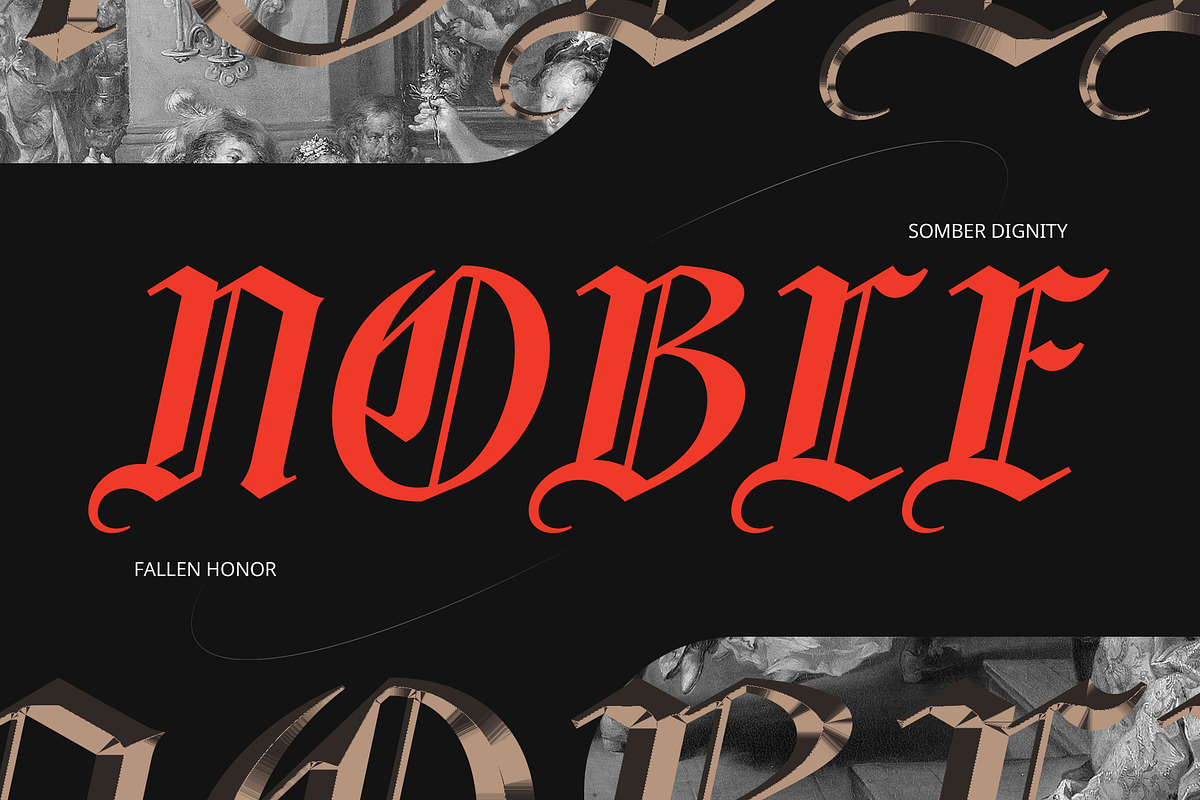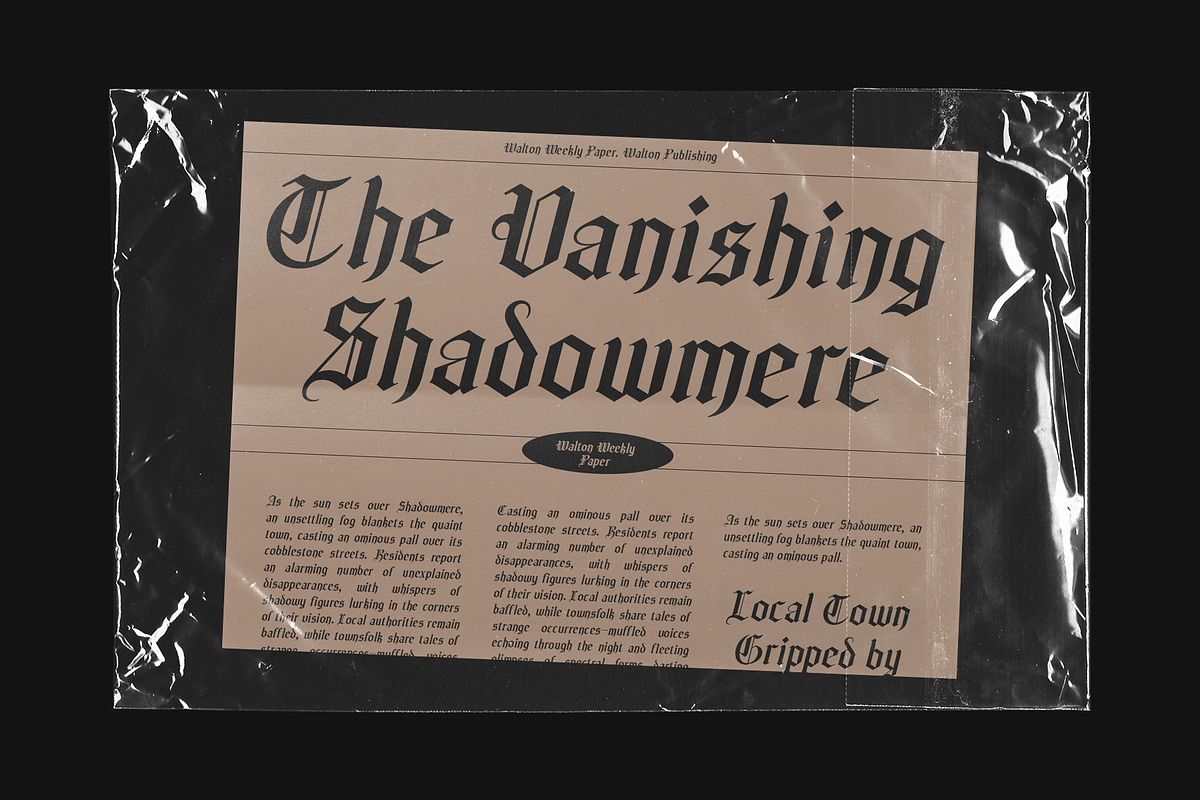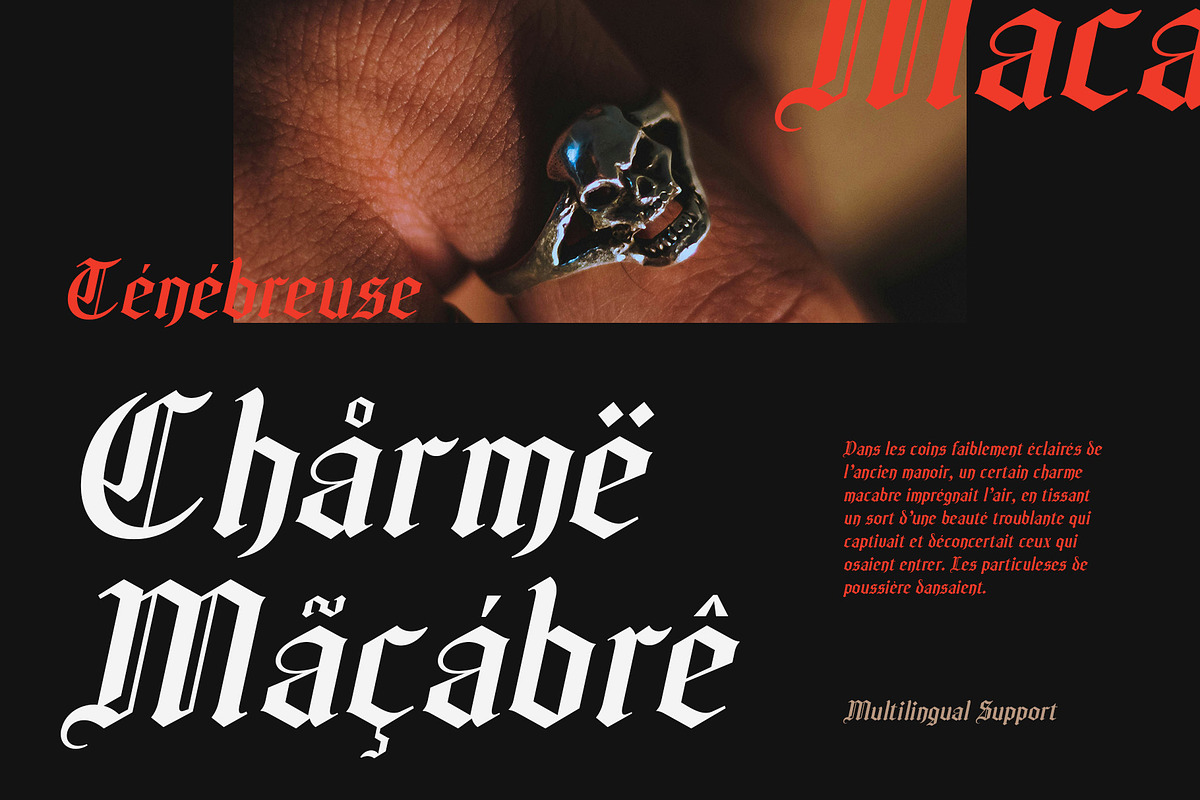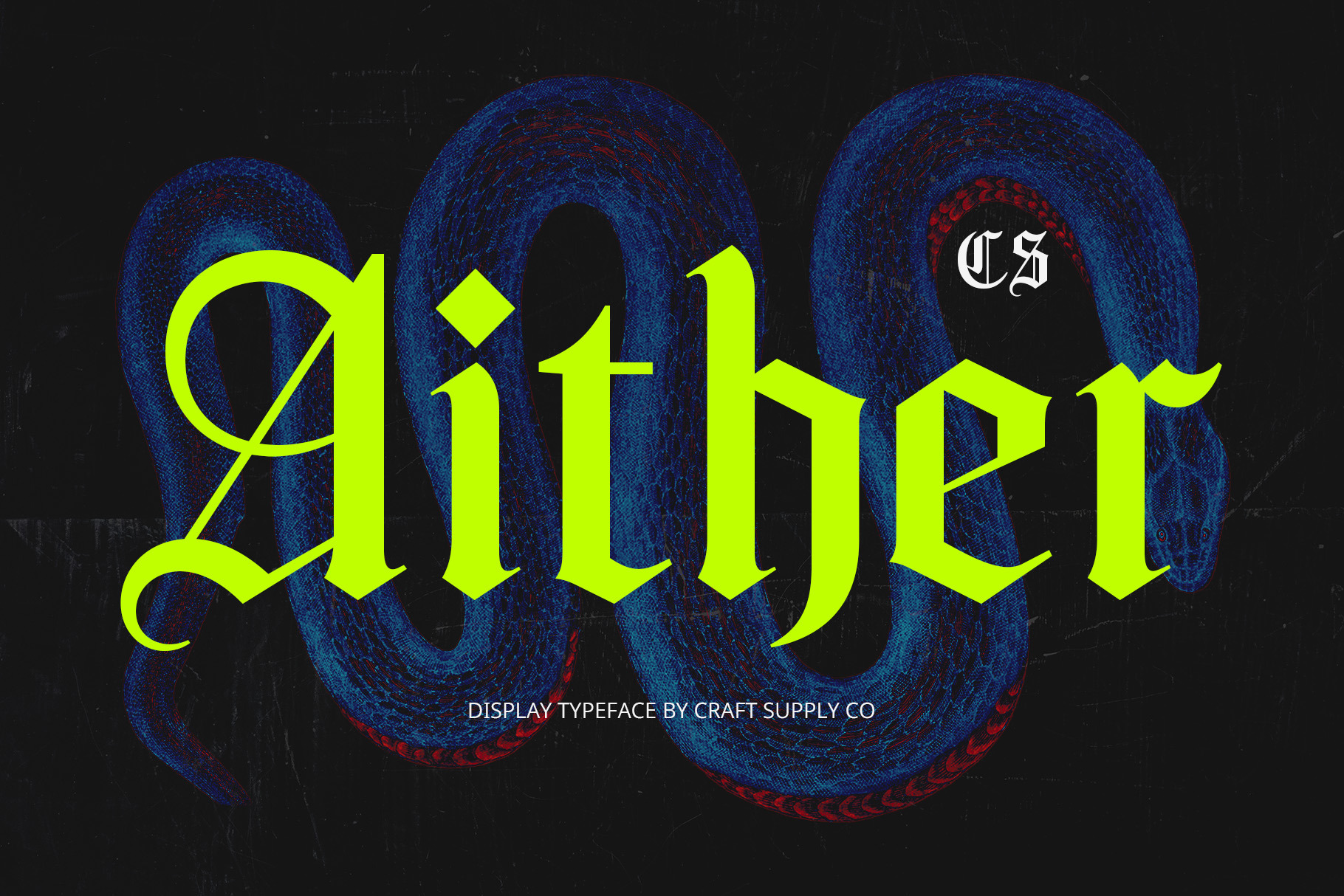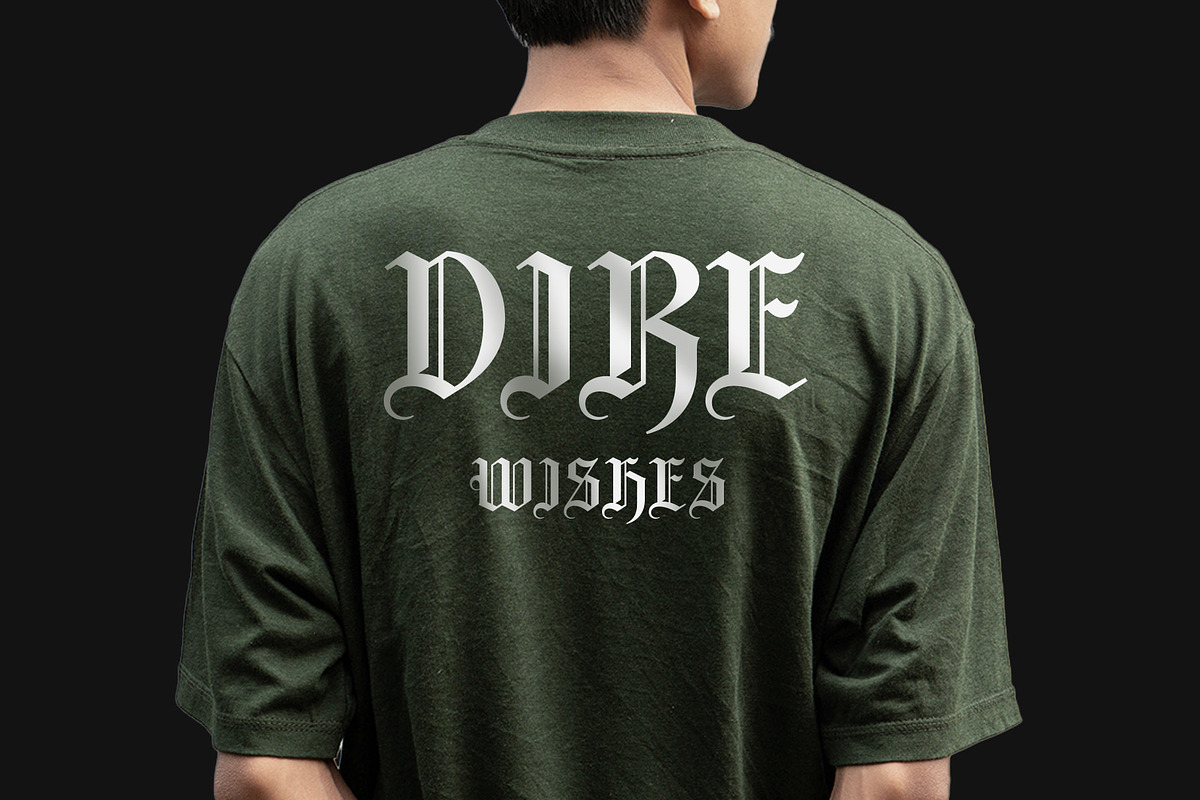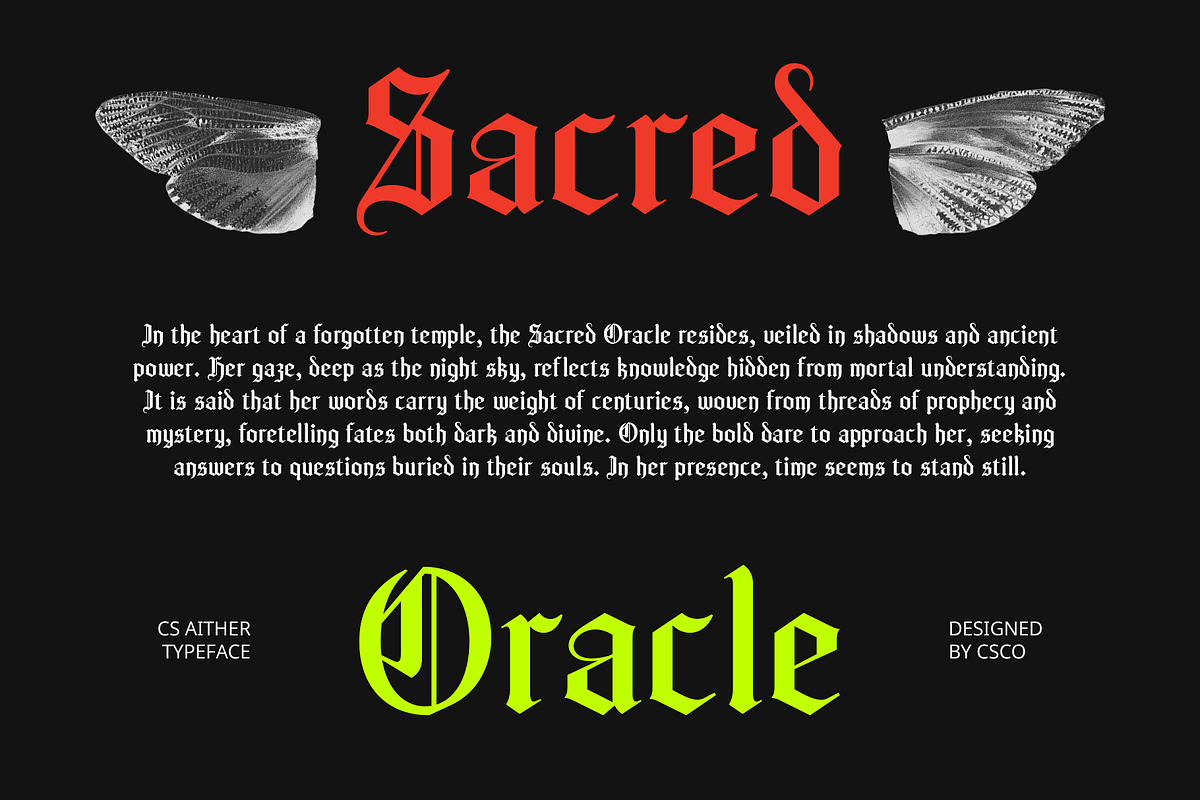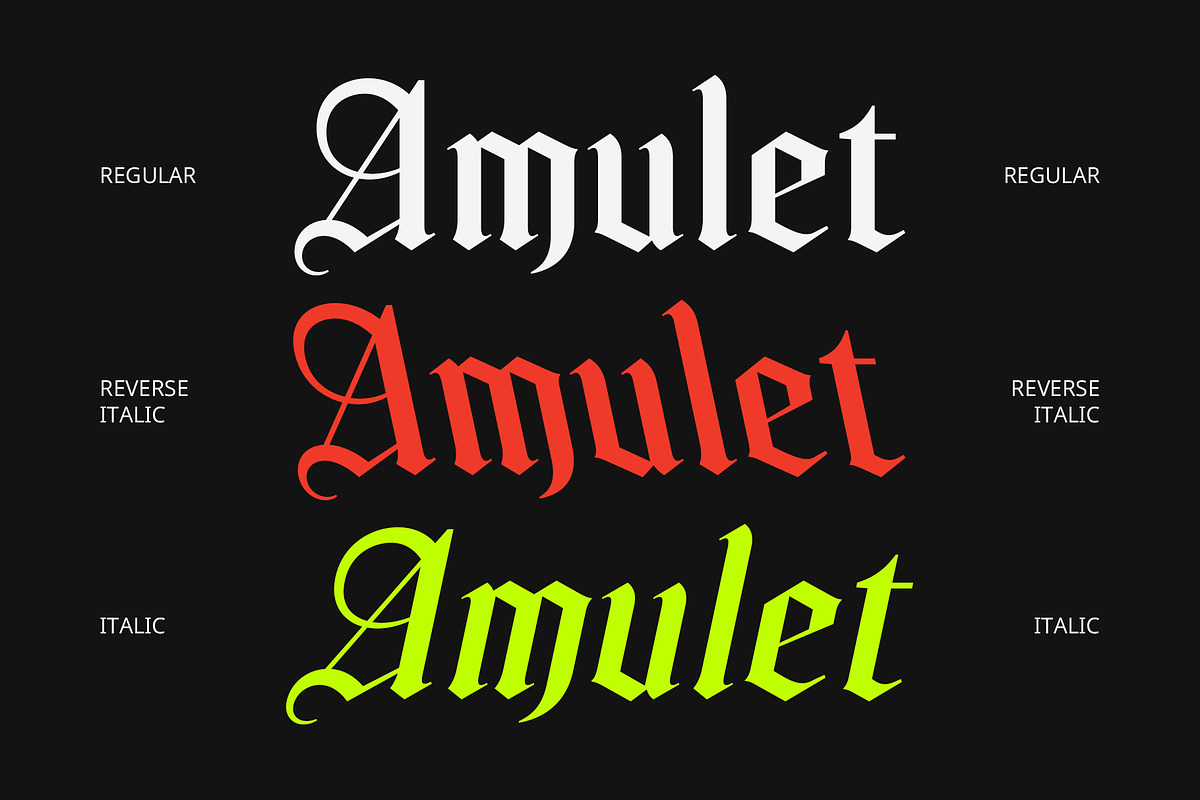
CS Aither – Blackletter Font
CS Aither – Blackletter Font: Timeless Elegance Meets Dramatic Impact
Classic Blackletter Display Font CS Aither is a distinguished display font crafted in the iconic blackletter style, often known as “Gothic” or “Old English.” This font is characterized by its bold letterforms, sharp angles, and intricate ornamental details, creating a striking and dramatic impression that evokes a sense of history and tradition.
Distinctive Characteristics for a Powerful Presence The design of CS Aither showcases very distinctive features, including elaborate serifs and sweeping strokes that enhance its visual impact. These elements combine to convey authority and sophistication, making it an excellent choice for designs that aim to make a lasting impression. The boldness of the letterforms adds a commanding presence, ensuring that your message stands out in any context.
Versatile Applications for Artistic Expression CS Aither shines in applications such as formal invitations, themed event posters, and artistic materials requiring a touch of heritage. Its vintage appeal resonates with audiences, adding an element of mystique and grandeur to any design. Whether it’s for a wedding invitation, a medieval-themed event, or an art exhibit, this font delivers a sense of deep elegance and authority.
- CS Aither Regular
- CS Aither Italic
- CS Aither Reverse Italic